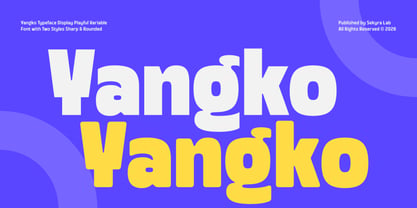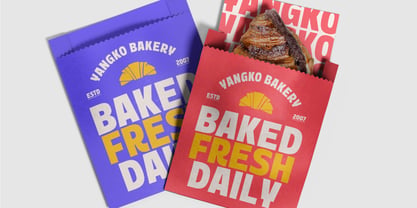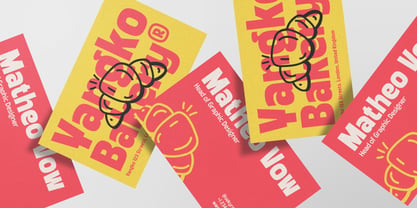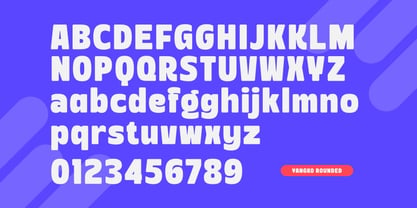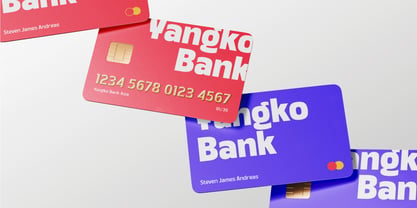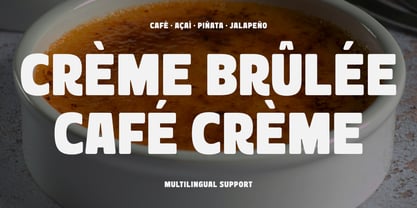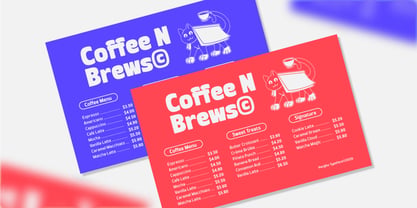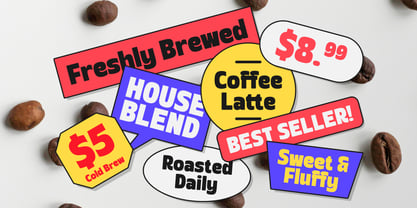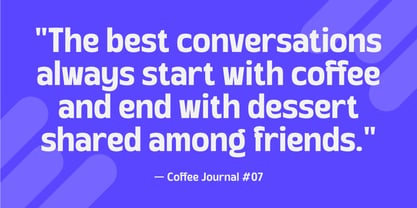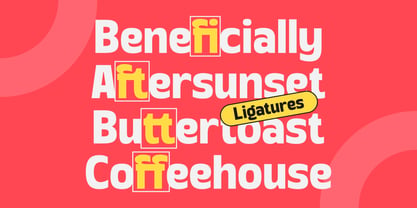
Yangko
Die Schriftfamilie Yangko wurde von Hanif Al Irsyad entworfen und von Sekyra Lab veröffentlicht. Yangko enthält 24 Stile und Familienpaketoptionen. Mehr über diese Familie
Yangko is a bold and playful display font family designed to bring energy, friendliness, and character to your creative projects. Featuring a unique blend of soft curves and confident geometric forms, Yangko offers a highly versatile typographic system that works beautifully across branding, packaging, advertising, social media, editorial headlines, and promotional graphics.
This family includes both Sharp and Rounded styles, allowing designers to switch between a more dynamic personality and a softer, approachable appearance while maintaining visual consistency. With multiple weights and oblique styles, Yangko provides flexibility for creating expressive typography with strong visual impact.